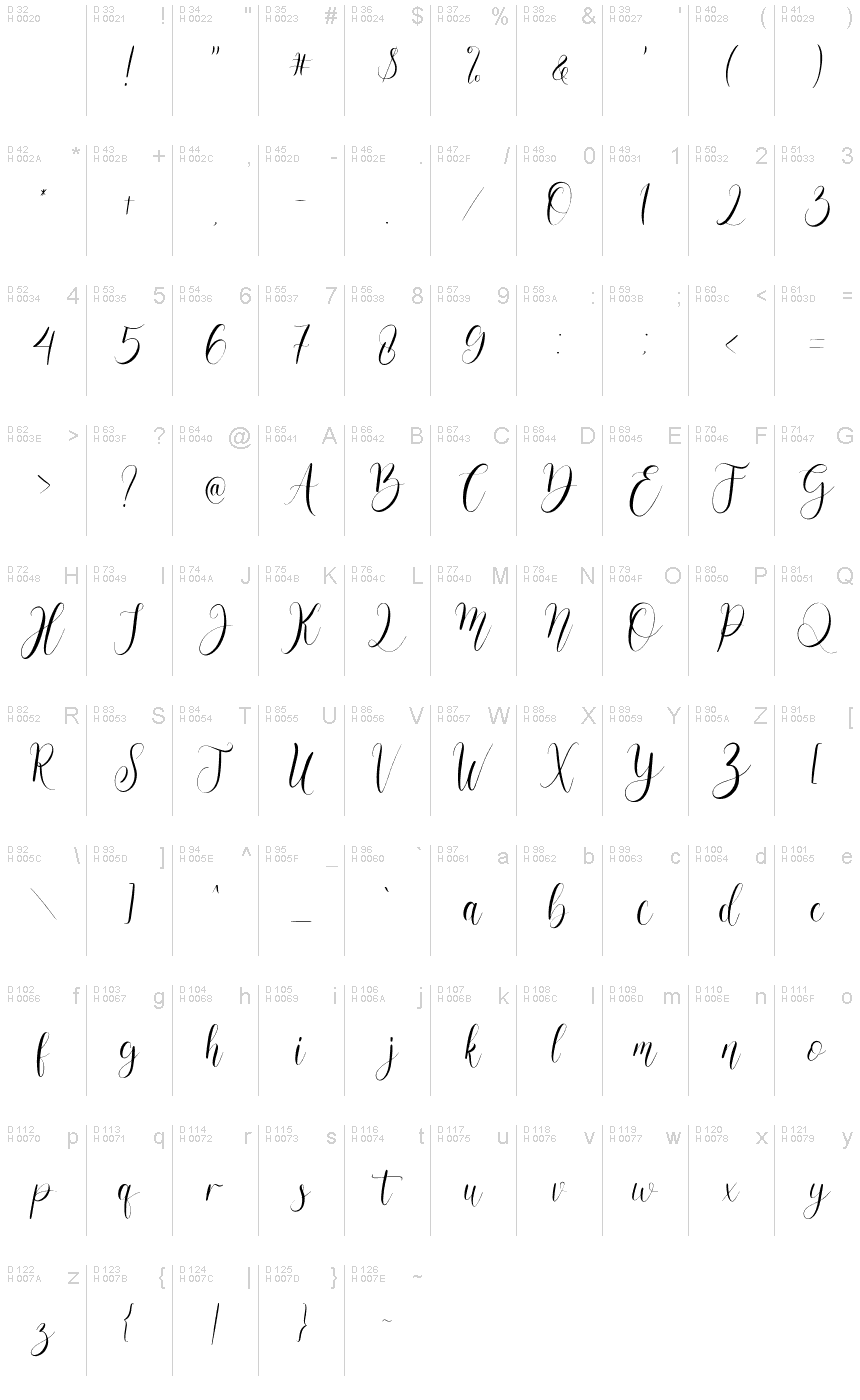
Abiallyne
Introducing Abiallyne - an elegant light calligraphy font from Qwrtype Foundry. With its narrow width, Abiallyne is perfect for adding a stylish touch to projects such as wedding invitations, logos and social media graphics.